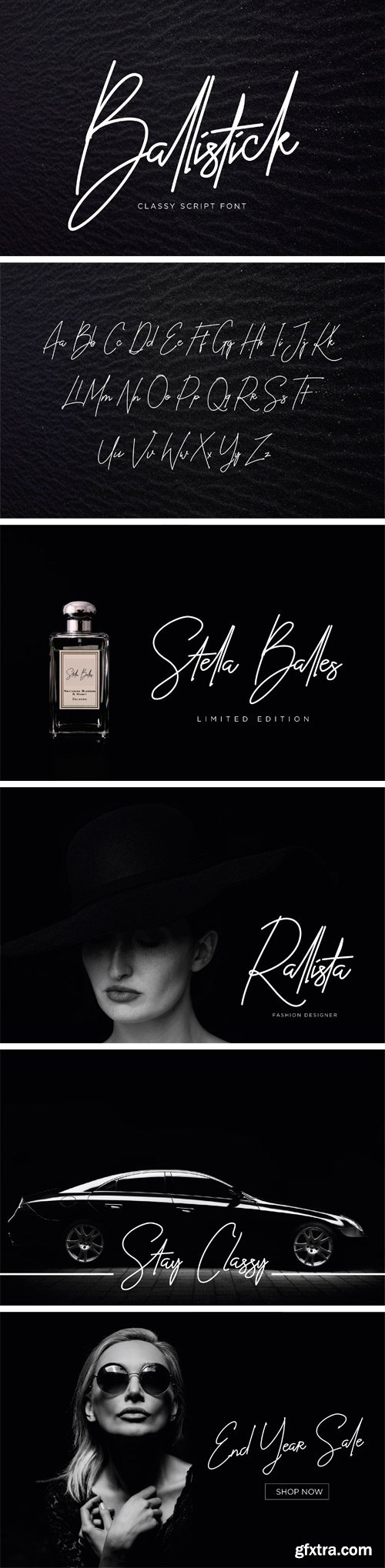
Ballistick Script Regular Typeface
Introducing Ballistick - Contemporary Signature Script font Beautiful & Classy typographic harmony for design projects, including logos & branding, wedding designs, social media posts, advertisements & product designs.